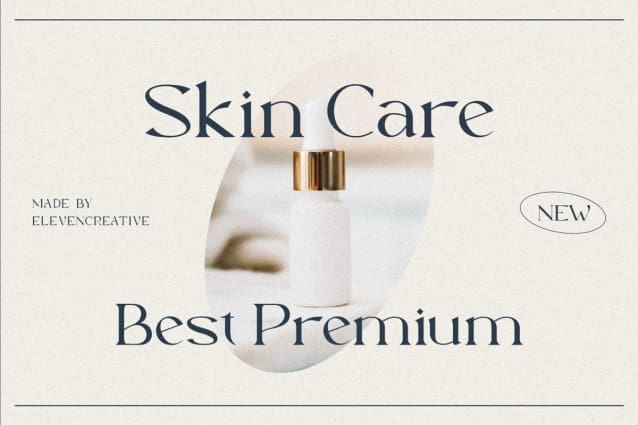
Raghate Font
Raghate font, a modern serif typeface with serif letters. Perfect for beautiful logos and headlines, Raghate will pair beautifully with many fonts and work well with any project you are working on.